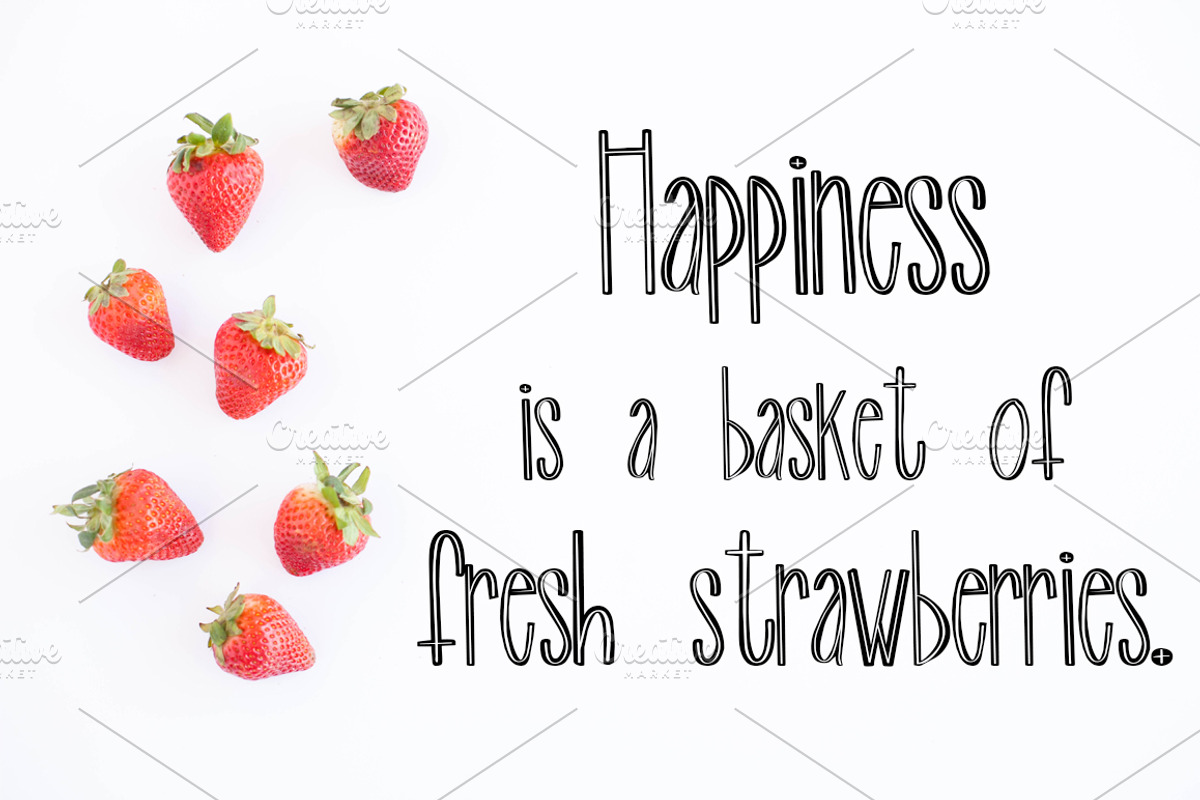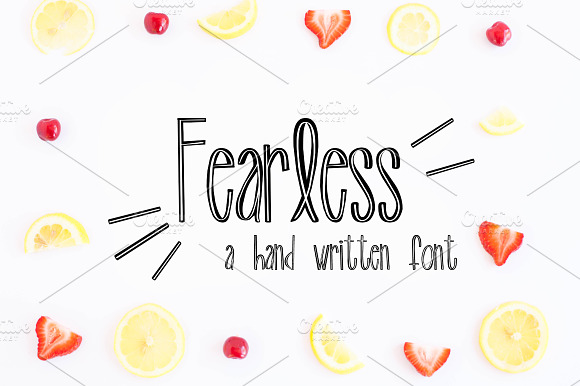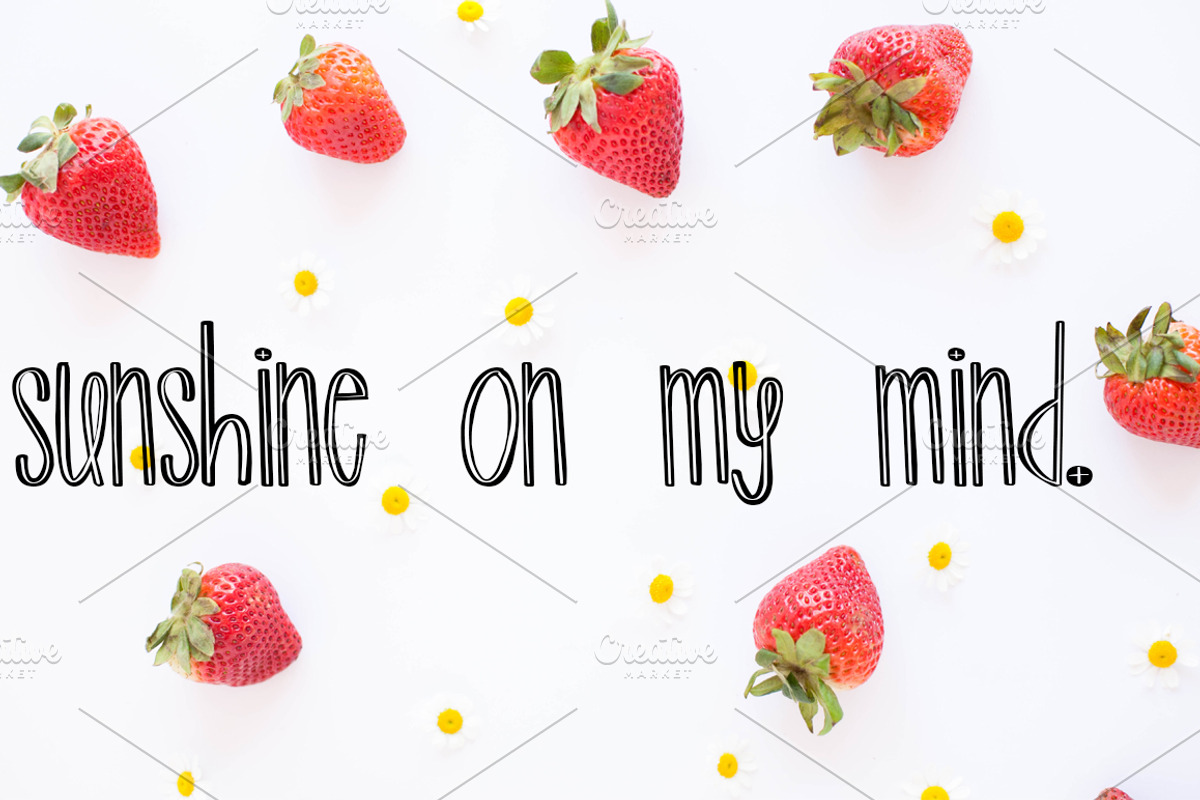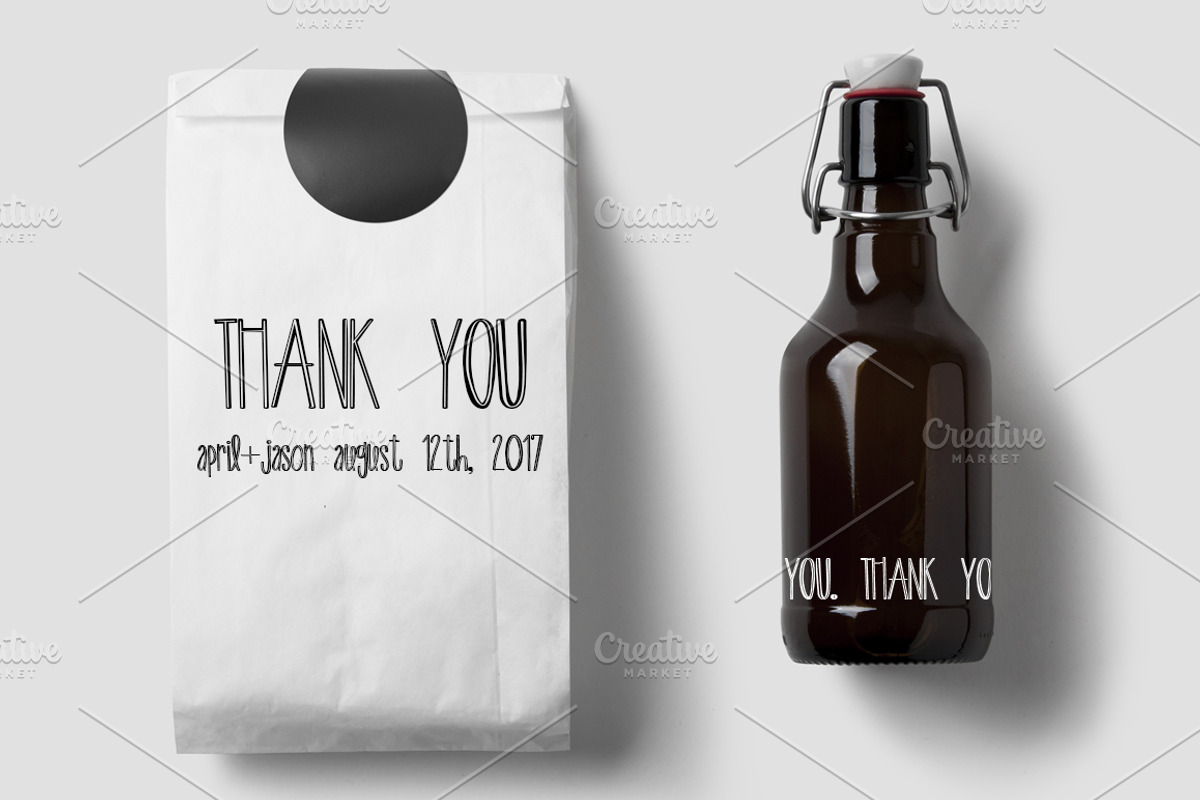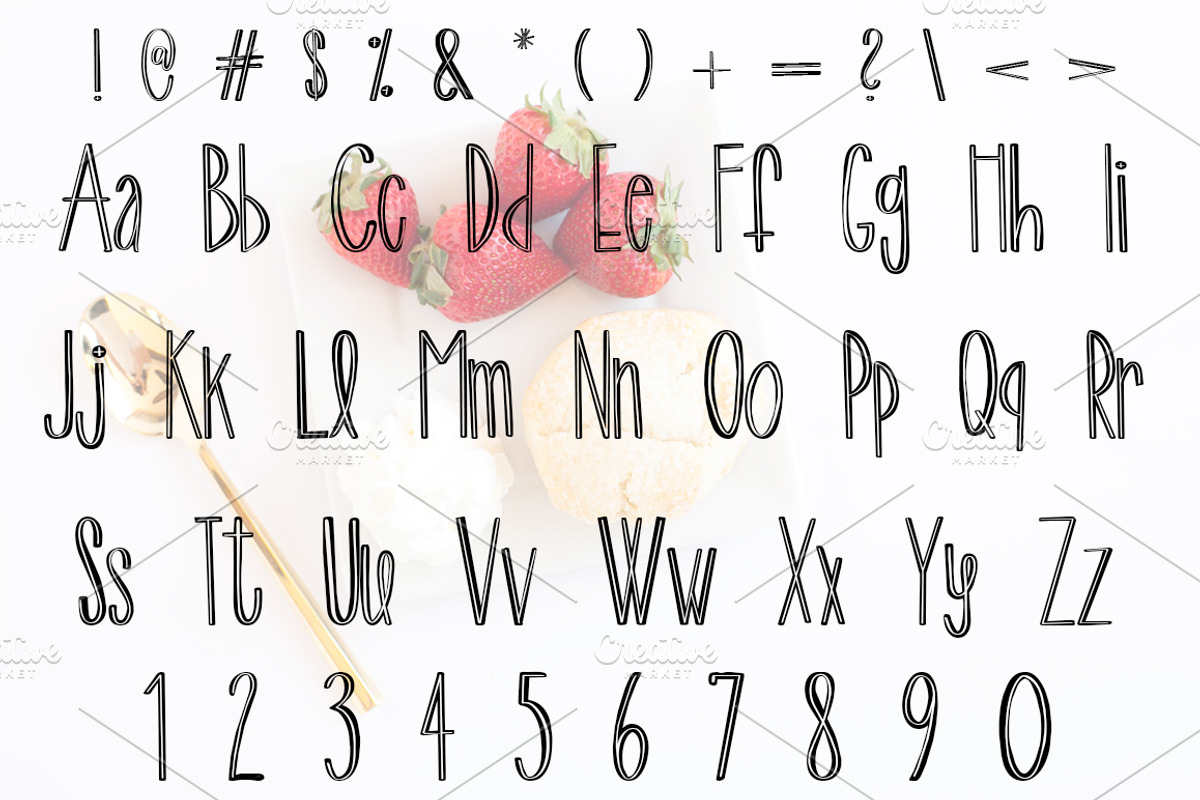
FEARLESS Hand Written Font
Fearless is a unique, hand written font! This sans serif font has got a bright, fun, spunky personality that will bring attitude and authenticity to any project. Full alphabet, numbers, and symbols included in this font.